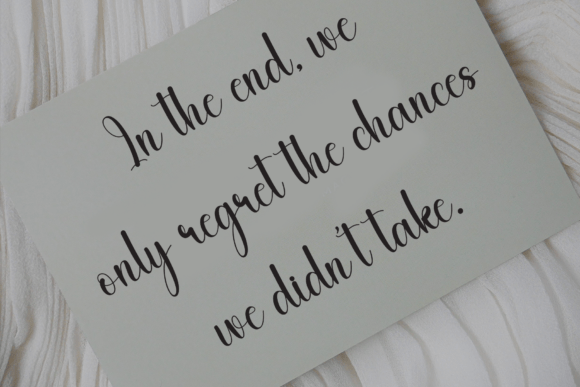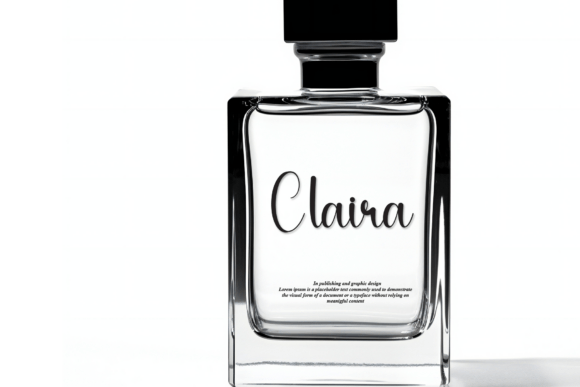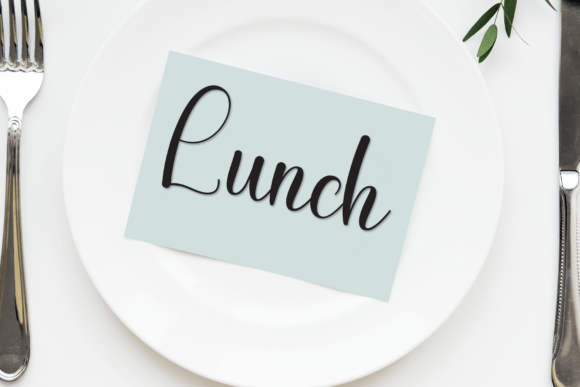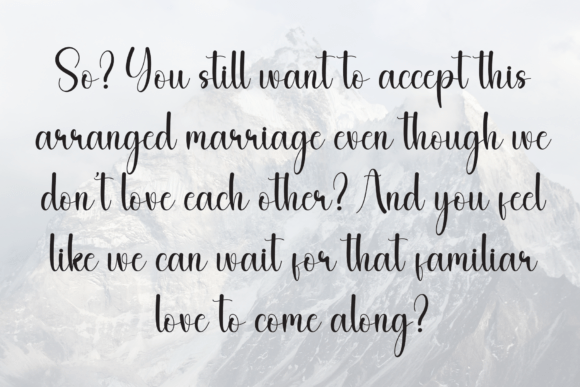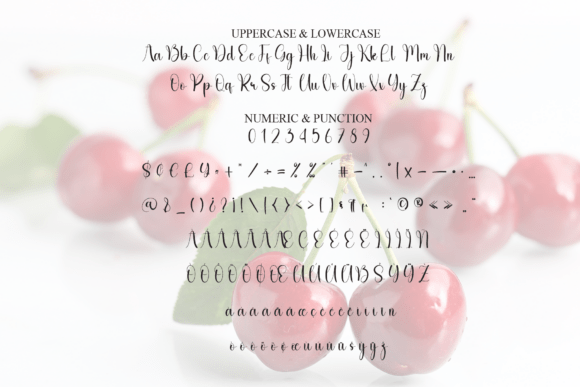
Introducing Cherry Font: Elevate Your Designs with Elegance and Sophistication
In the world of typography, fonts play a crucial role in conveying the tone and personality of a design. For designers and crafters seeking to add a touch of elegance and modern charm to their projects, Cherry Font is an exceptional choice. This stylish script font is designed to bring a refined and sophisticated feel to various design applications, from logos and invitations to packaging and social media graphics.
The Beauty of Cherry Font
Cherry Font is characterized by its graceful strokes, fluid curves, and meticulously crafted letterforms. These features combine to capture the essence of hand-drawn calligraphy with a contemporary twist. The font’s natural flow and polished details make it an excellent tool for designers aiming to create visually appealing and professional-looking designs.
Key Features of Cherry Font
- Elegant Script Style: Cherry Font boasts a stylish script style that exudes elegance and sophistication. Its unique charm makes it perfect for designs that require a touch of refinement.
- Versatility: This font is incredibly versatile, suitable for a wide range of design projects including logos, invitations, packaging, and social media graphics.
- Modern Twist: While Cherry Font draws inspiration from traditional calligraphy, it incorporates a modern twist that sets it apart from more conventional script fonts.
- Easy to Read: Despite its elegant and cursive nature, Cherry Font remains highly legible, making it practical for use in various contexts.
Applications of Cherry Font
Cherry Font’s versatility and aesthetic appeal make it suitable for a variety of design applications:
- Logos: Create memorable and sophisticated logos that stand out with Cherry Font’s unique style.
- Invitations: Add an elegant touch to your invitations, making them perfect for weddings, parties, and formal events.
- Packaging: Elevate your product packaging with a refined and eye-catching font that captures the essence of your brand.
- Social Media Graphics: Enhance your social media presence with stylish graphics that utilize Cherry Font for a professional look.
Why Choose Cherry Font?
For designers and crafters looking for a font that combines elegance with a modern edge, Cherry Font is an outstanding choice. Its ability to bring a sophisticated touch to designs without compromising readability makes it a valuable asset in any designer’s toolkit.
Furthermore, Cherry Font’s design ensures that your projects stand out in a crowded digital landscape. Its unique blend of traditional calligraphy elements with a contemporary aesthetic ensures that your designs are not only beautiful but also distinctive.
Tips for Using Cherry Font Effectively
- Pair with Complementary Fonts: For maximum impact, pair Cherry Font with fonts that complement its elegant style. Sans-serif fonts can provide a nice contrast and enhance readability.
- Adjust Letter Spacing: Experiment with letter spacing to ensure optimal readability and aesthetic appeal for your specific design.
- Utilize Font Sizes: Take advantage of varying font sizes to create visual hierarchy and emphasize key elements in your design.
Cherry Font is a stylish and elegant script font that brings a touch of sophistication and modern charm to any design. Its versatility, combined with its aesthetic appeal, makes it an ideal choice for designers and crafters looking to elevate their projects. Whether you’re creating logos, invitations, packaging, or social media graphics, Cherry Font is sure to deliver both visual appeal and a refined touch.
Discover the potential of Cherry Font in your designs and experience the difference it can make in creating stunning and professional-looking projects.